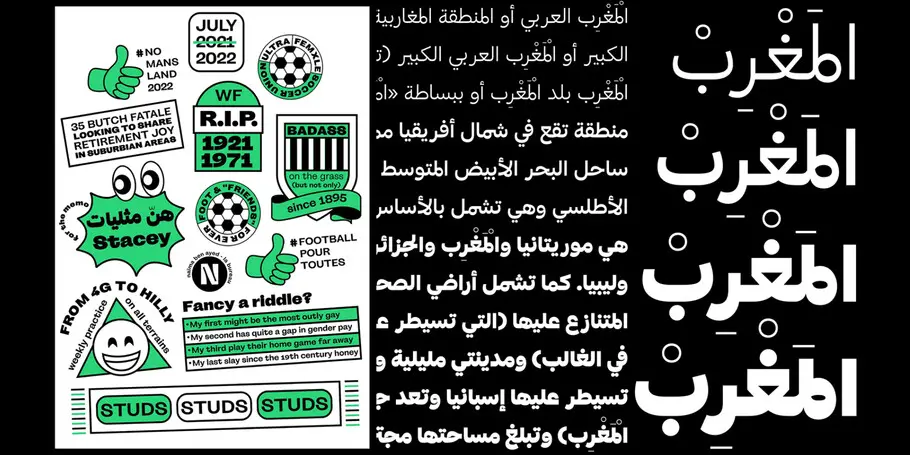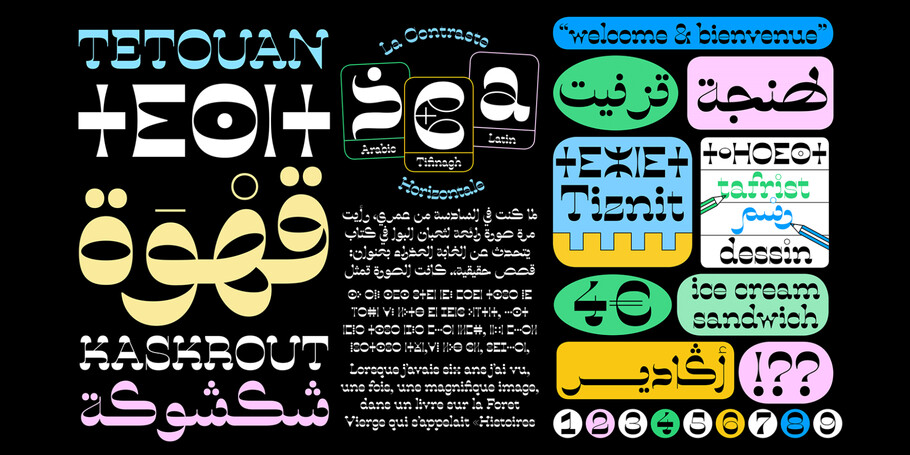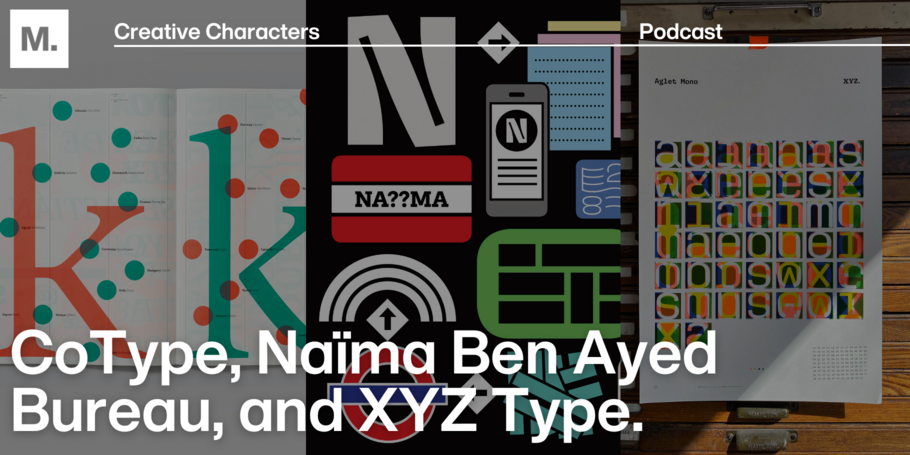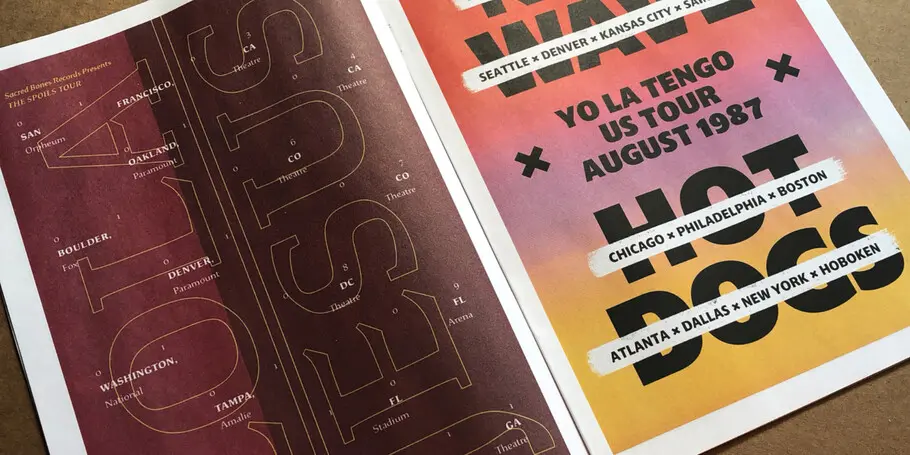
Creative Characters S3 E9: Studios we love: the stories of CoType, Naïma Ben Ayed Bureau, and XYZ Type.
This week’s episode is a triple threat. Monotype Executive Creative Directors Charles, Phil, and Tom each selected a type designer they admire to bring on the show. What resulted is inspiring discussions with Mark Bloom of CoType, Naïma Ben Ayed Bureau, and Jesse Ragan and Ben Kiel of XYZ Type, three unique studios making great work in their own distinct ways.
Our first guest is Mark Bloom, the owner of CoType™ Foundry, based in London, UK. Monotype Executive Creative Director, Phil Garnham, was excited to host Mark because, “Mark Bloom has a unique eye for display type and composition, he makes the kinds of typefaces that explore the grid, the formal and modular side of type whilst applying his spin. As both graphic and type designer, he’s fortunate to have two minds, the kind of insight that enables some slick foundry output that evokes digitalism in every sense. The best work always comes from designers that are enjoying themselves and team CoType are clearly very happy people.”
Next up is Naïma Ben Ayed, who spoke with Monotype Executive Creative Director, Tom Foley. When asked about his guest, Tom said, “Naïma Ben Ayed Bureau makes beautiful typefaces that explore diverse ideas. Identity and the relationship between Latin and Arabic typography are fertile sources of inspiration, but they also represent a complex and nuanced part or of our industry. Naïma navigates this through stylish typeface design that is culturally aware and super relevant. It was a pleasure to chat to such a rare talent, who clearly takes it all in her stride.”
Finally, we have Ben Kiel and Jesse Ragan of XYZ Type to round out the episode. Host and Monotype Executive Creative Director Charles Nix said of the duo, “Jesse and Ben (XYZ Type) make great typefaces—and they do it thoughtfully. That’s a perfect combination for a podcast about type. It was great to get to talk to them about where they came from and where they’re going—and it’s doubly great to share it with others who love type.”